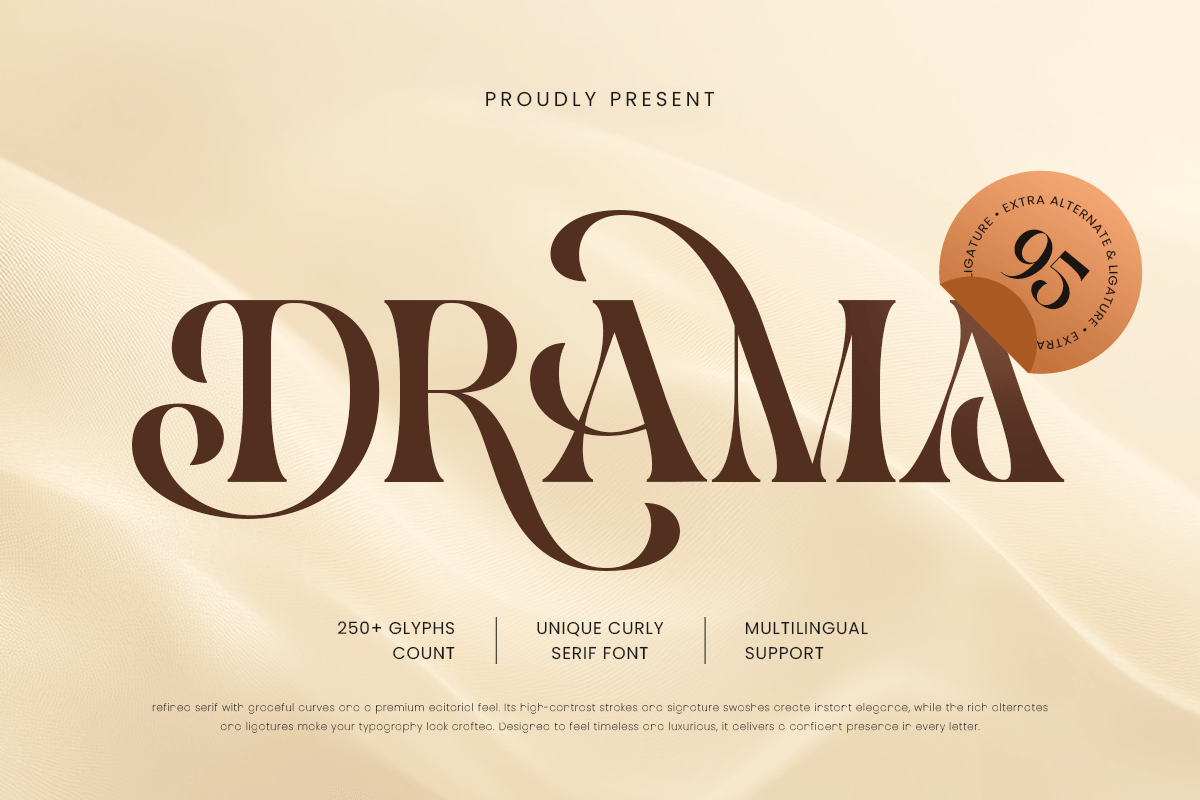
Drama
-Unique Curly Serif FontDrama - Unique Curly Serif Font
DRAMA is a unique curly serif font designed to bring expressive elegance and decorative personality to your typography. With stylish serif structure and distinctive curly details, this typeface creates a refined visual tone that feels artistic, classy, and instantly memorable.
Built for statement-driven design, DRAMA works beautifully across logos, wordmarks, editorial layouts, magazine covers, website headers, packaging, labels, invitations, posters, signage, and social media visuals. Its curly serif character adds a graceful decorative flair while keeping typography readable and polished across both digital and print applications.
Whether you’re building a fashion identity, creating boutique branding, designing elegant packaging, or crafting artistic editorial headlines, DRAMA provides a unique serif foundation that makes your visuals feel sophisticated, expressive, and full of premium charm.
Inspiration Behind DRAMA
DRAMA is inspired by decorative serif typography and expressive editorial aesthetics—where elegant curves and distinctive details create a bold visual signature. The design focuses on curly serif rhythm, artistic refinement, and premium balance to support standout branding and stylish headline design with a graceful, memorable presence.
DRAMA Font Features:
Unique curly serif letterforms with elegant decorative character
Perfect for logos, branding systems, and expressive headline typography
Stylish serif structure with artistic visual personality
High readability for editorials, packaging, and premium layouts
Make every headline unforgettable with DRAMA—a unique curly serif font made for expressive, elegant branding. ✨